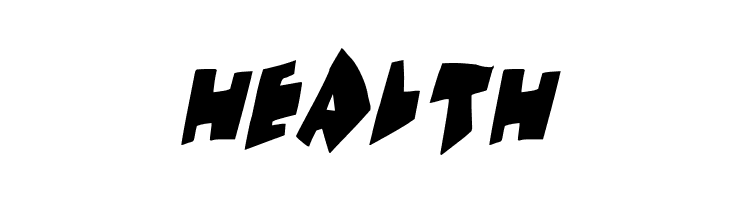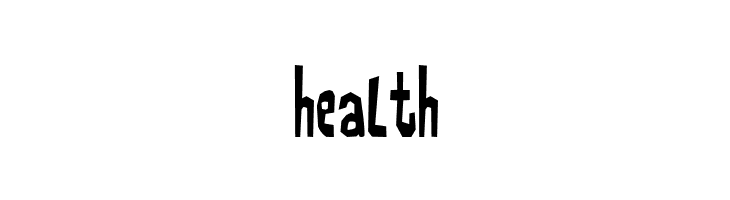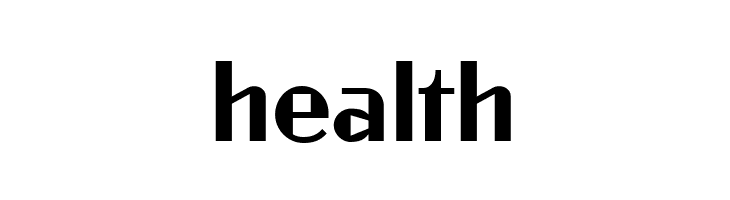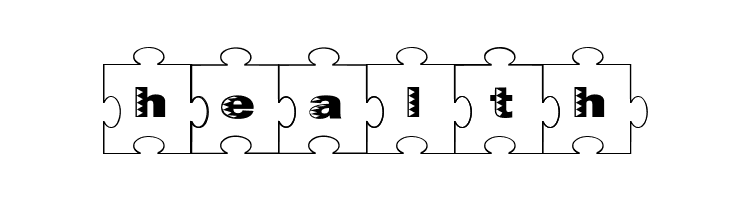
A bold, angular font with a dynamic and energetic style.
A playful, handwritten font with bold, rounded characters and a whimsical style.
A bold, modern font with clean lines and strong geometric structure.
A playful font with characters enclosed in jigsaw puzzle pieces, offering a bold and unique style.